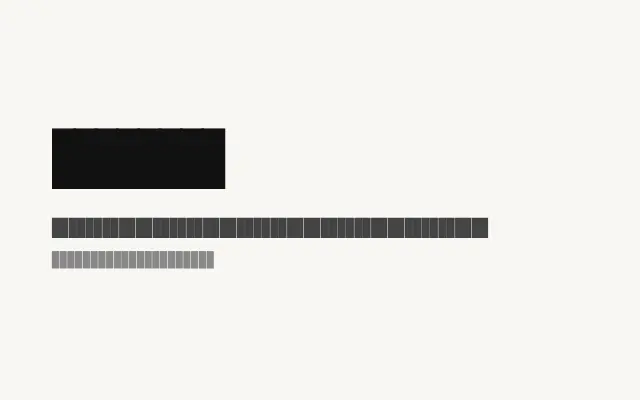
Redacted
A deliberate redaction font that renders text as illegible blurred blocks, designed purely for wireframing and prototyping.
Redacted solves a specific design workflow problem by allowing designers to place realistic-looking redacted or placeholder text in mockups without relying on lorem ipsum or revealing actual content. Its single Regular weight and narrow scope make it entirely purpose-driven, with no application outside prototyping or conceptual design work. It is a clever utility rather than a serious typeface, and should be evaluated on that basis alone.
Redacted is a novelty display face that renders all text as blurred, censored blocks, designed explicitly for use in wireframes and prototypes where placeholder text must appear without being readable. It is a single-trick functional tool with no typographic versatility beyond its specific purpose.